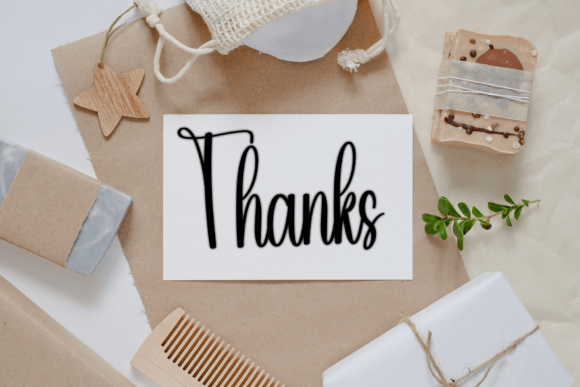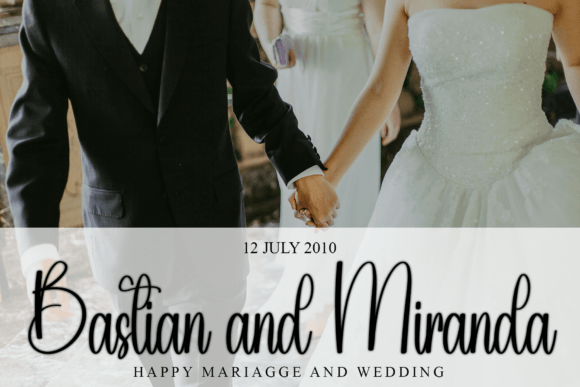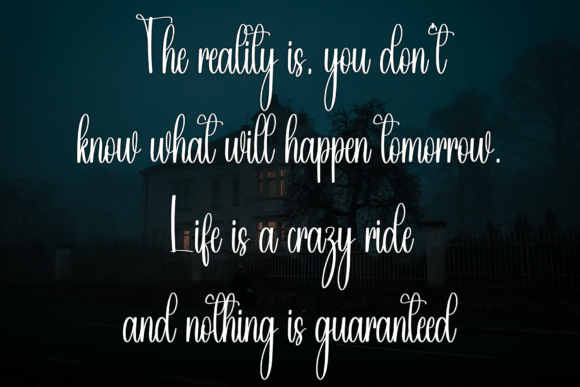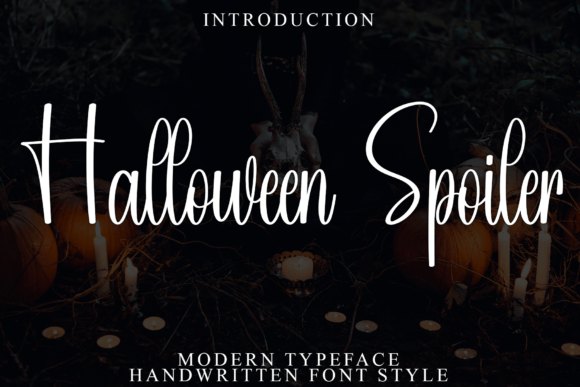
Introduction to Halloween Spoiler Font
Halloween Spoiler is a stylish font exuding elegance and charm.
Its fluid strokes and natural flow create a captivating, sophisticated look Perfect for adding a personal touch to invitations, branding, or social media, this font brings a sense of warmth and creativity to any design.
Key Features of Halloween Spoiler Font
Why Choose Halloween Spoiler Font?